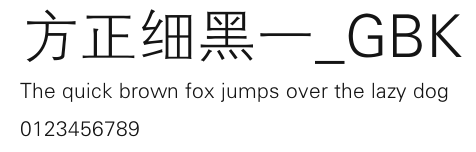
About 方正细黑一_GBK.ttf
方正细黑一_GBK.ttf is a modern, elegant sans-serif font designed for ultimate readability and visual harmony. Perfect for branding, headlines, web design, and print materials.